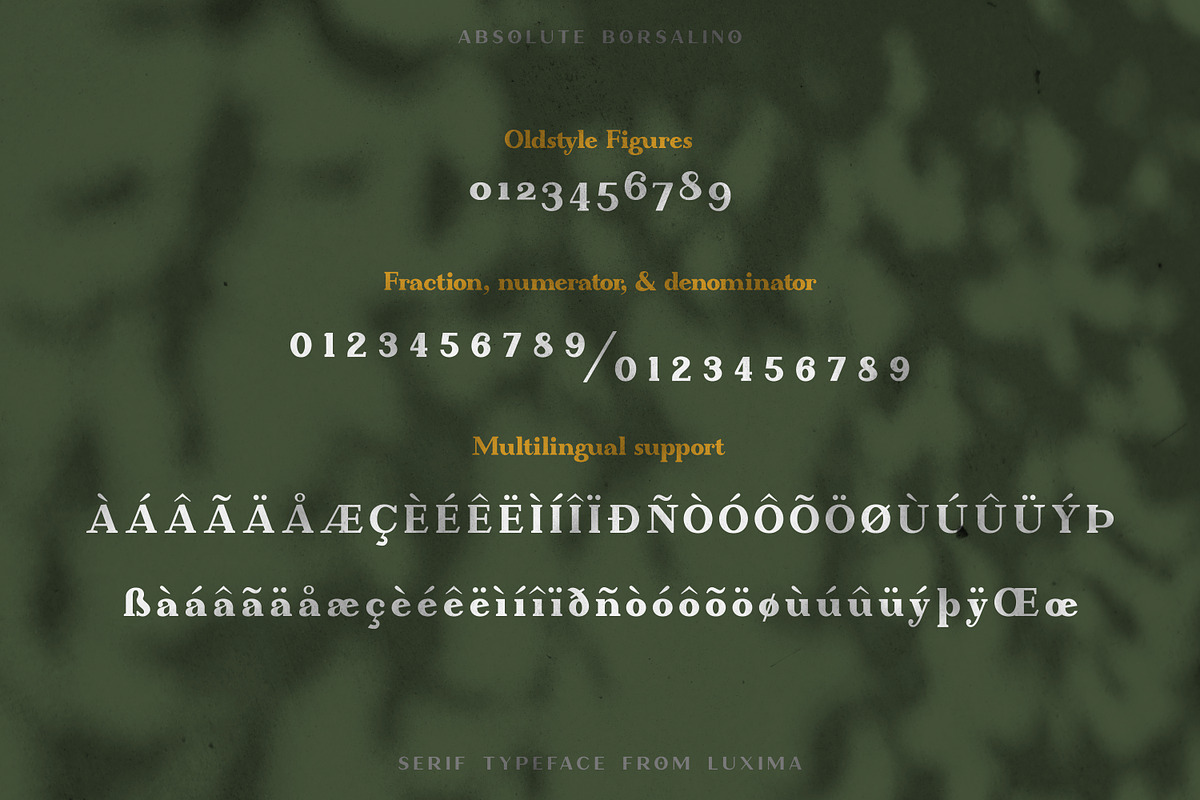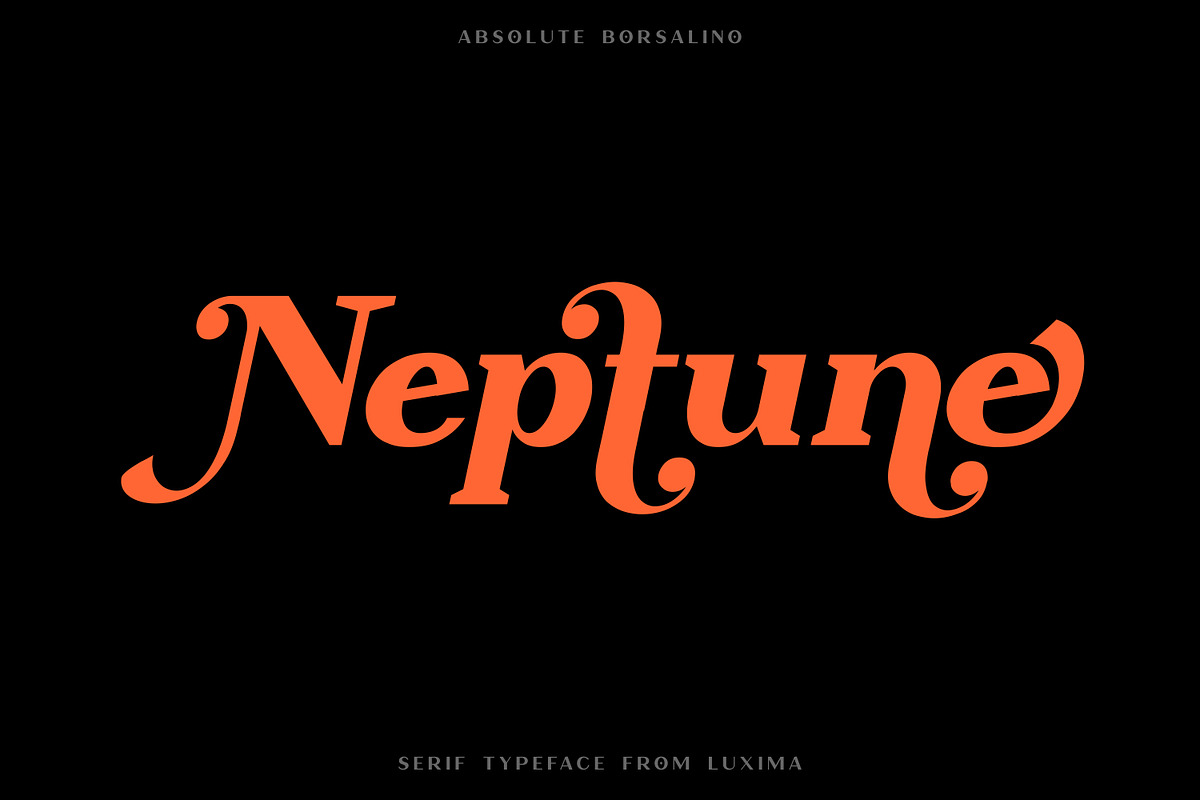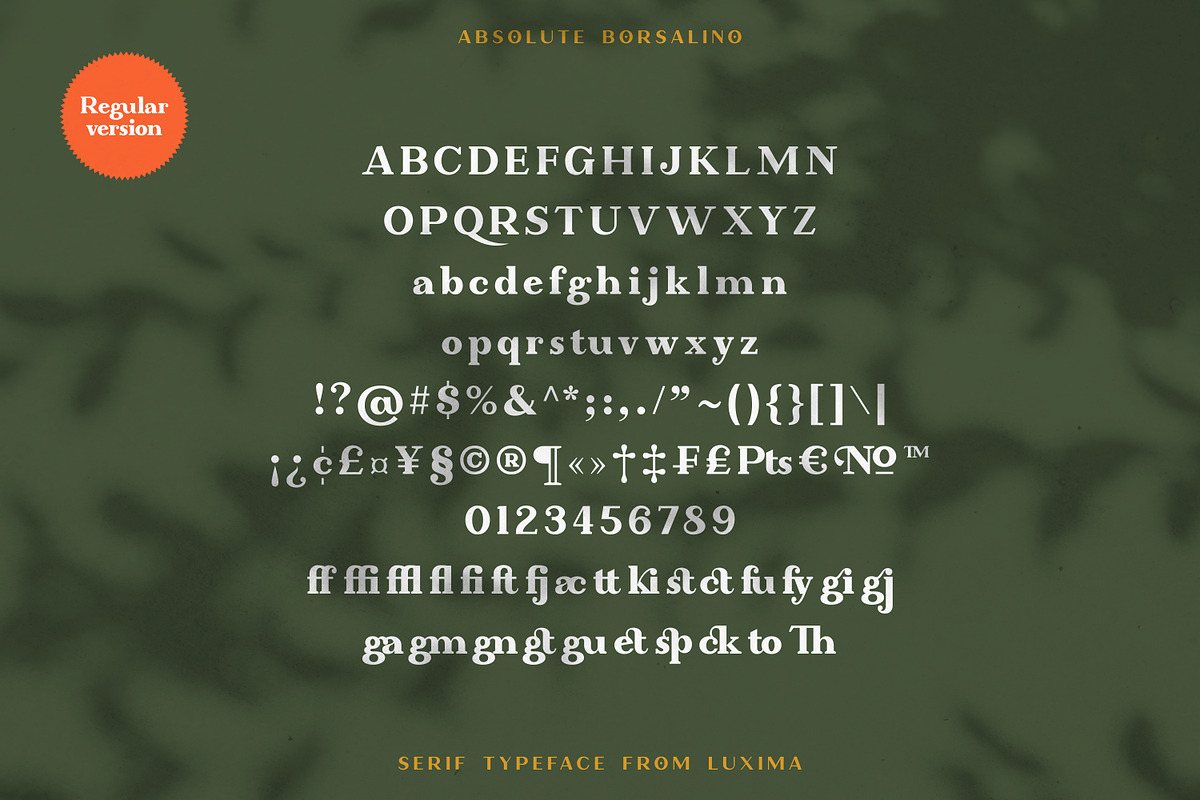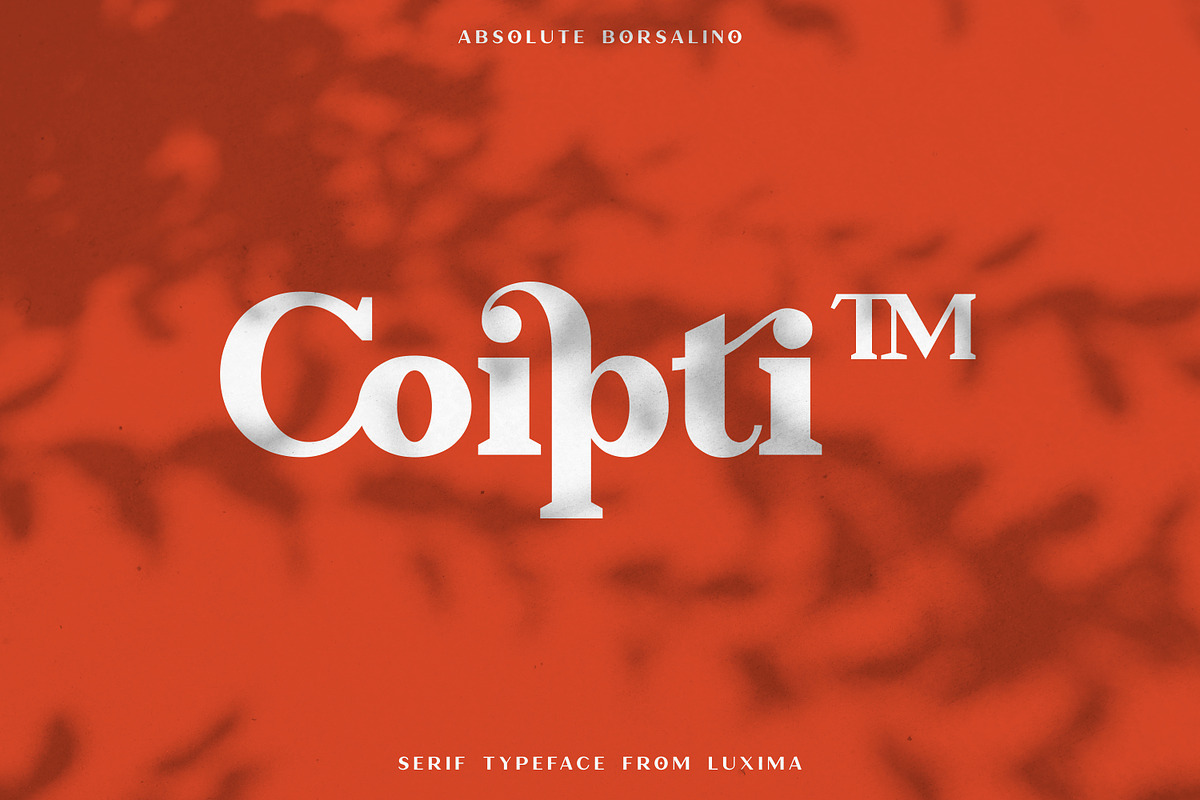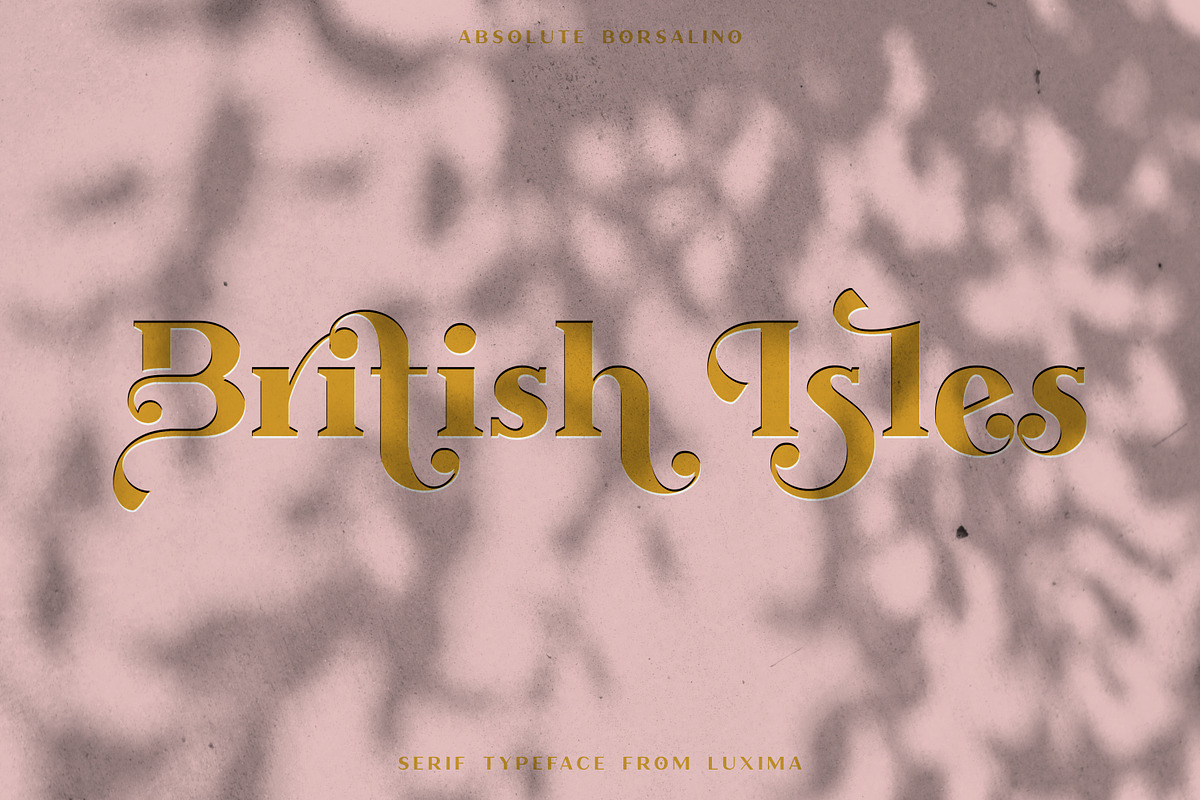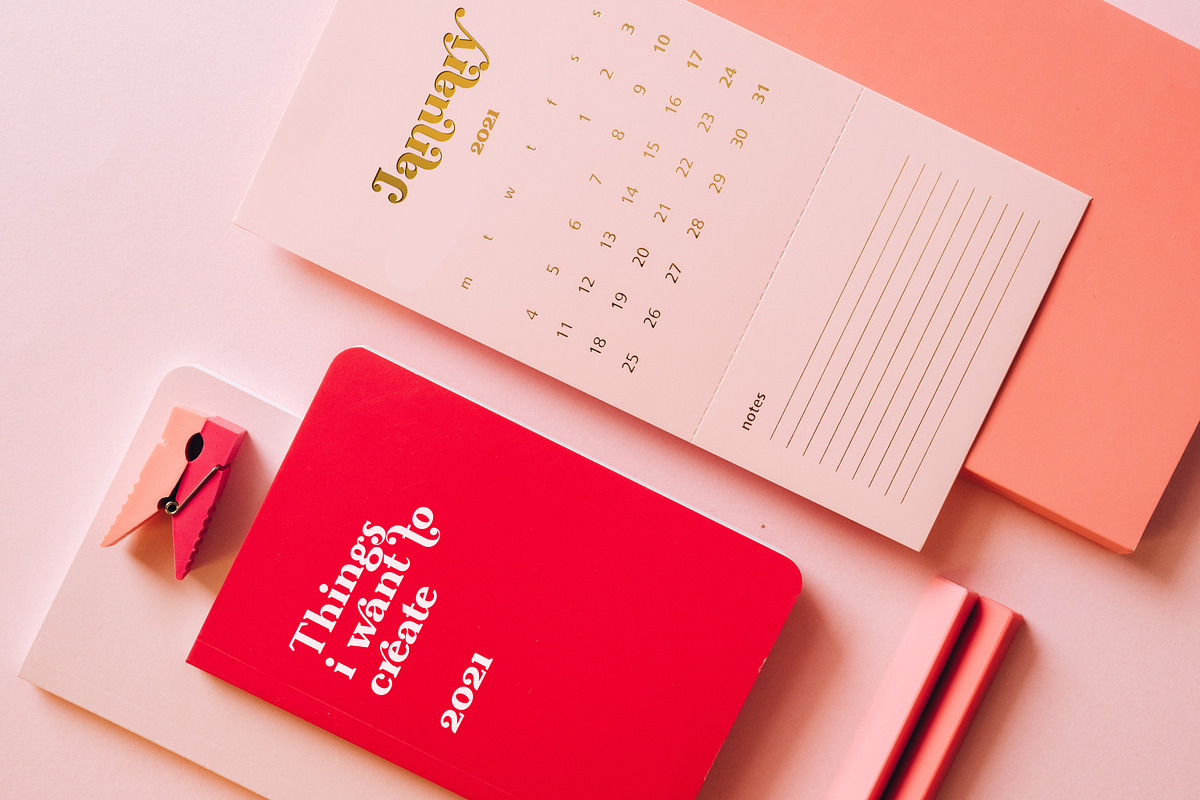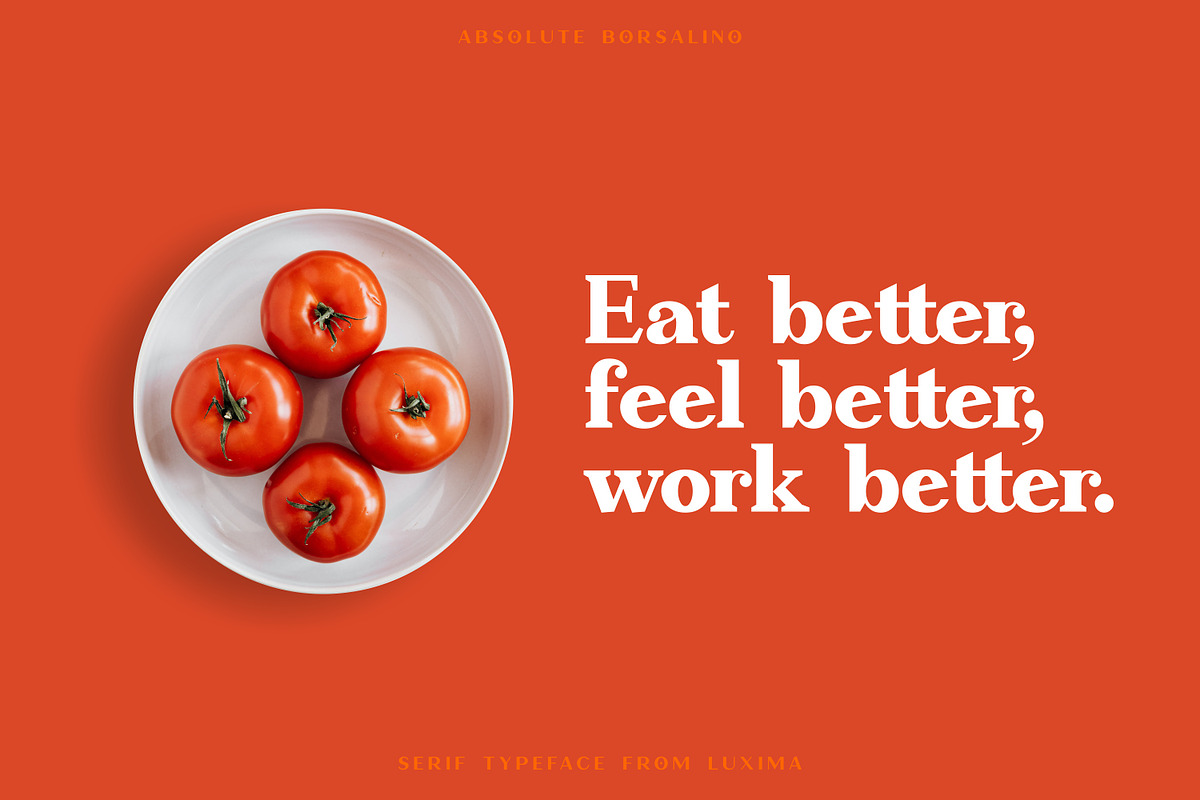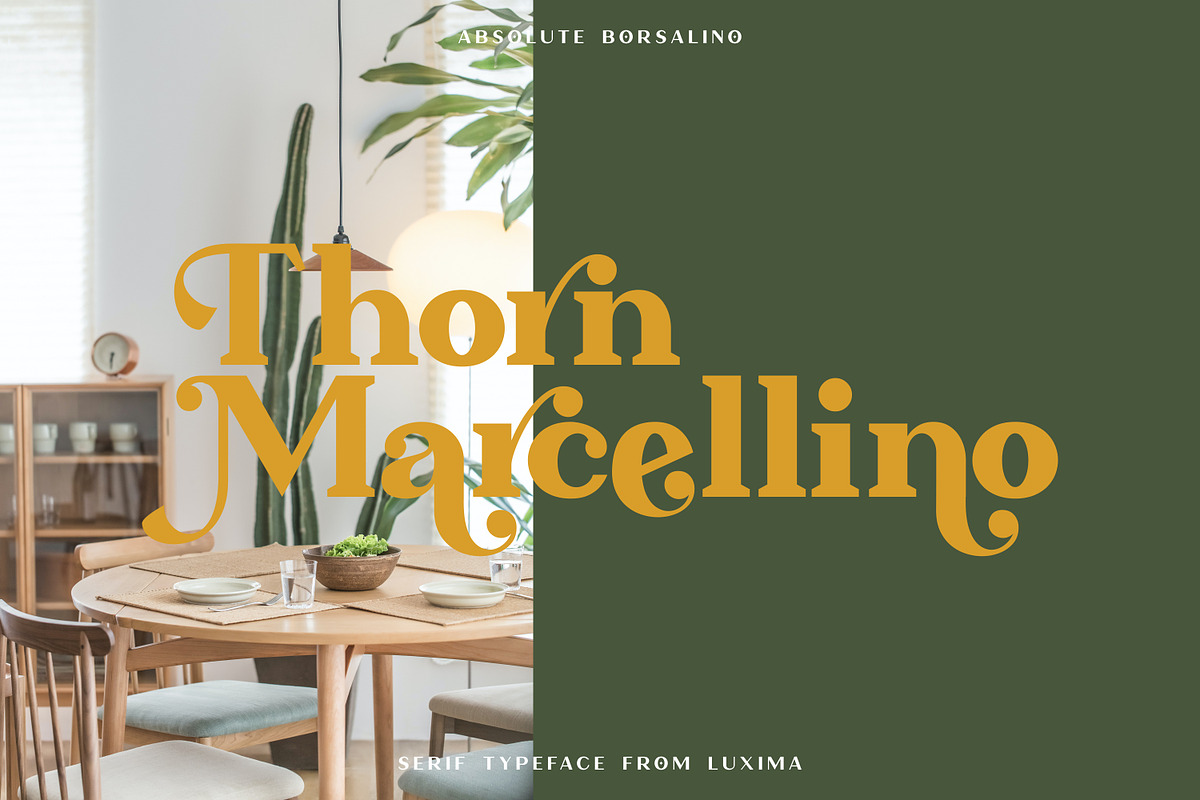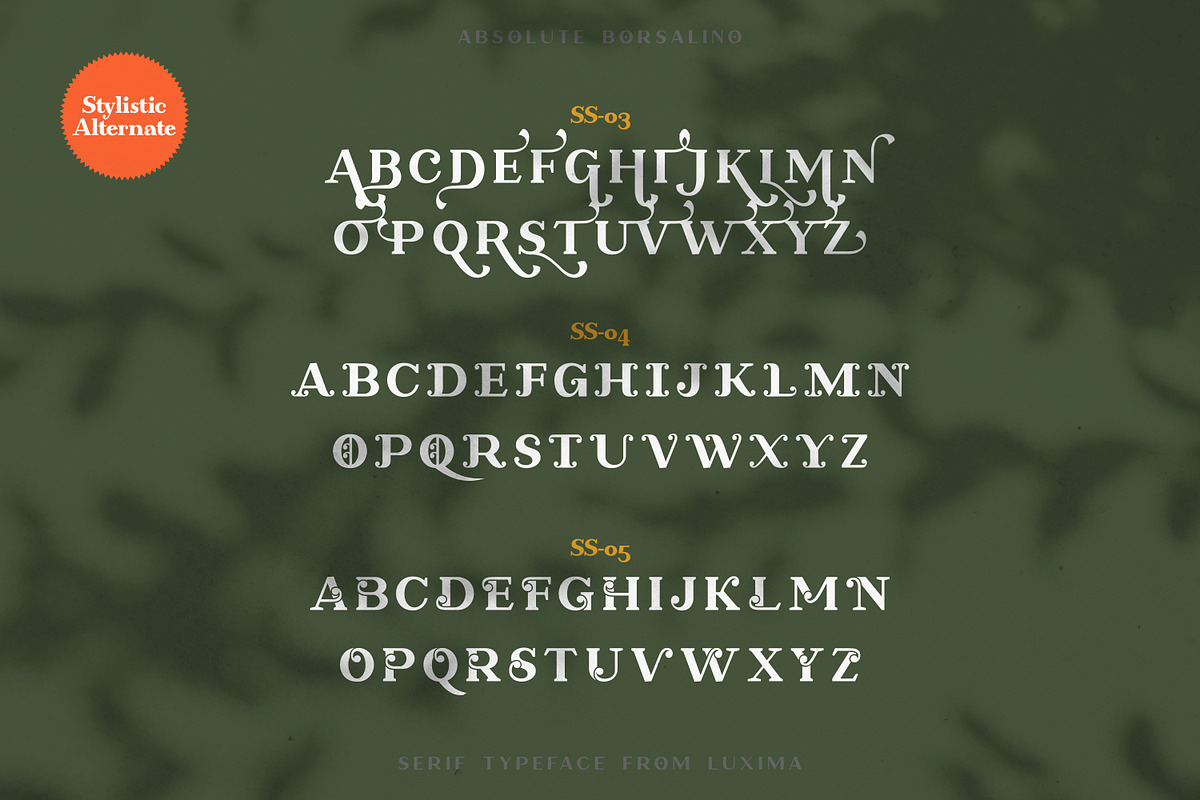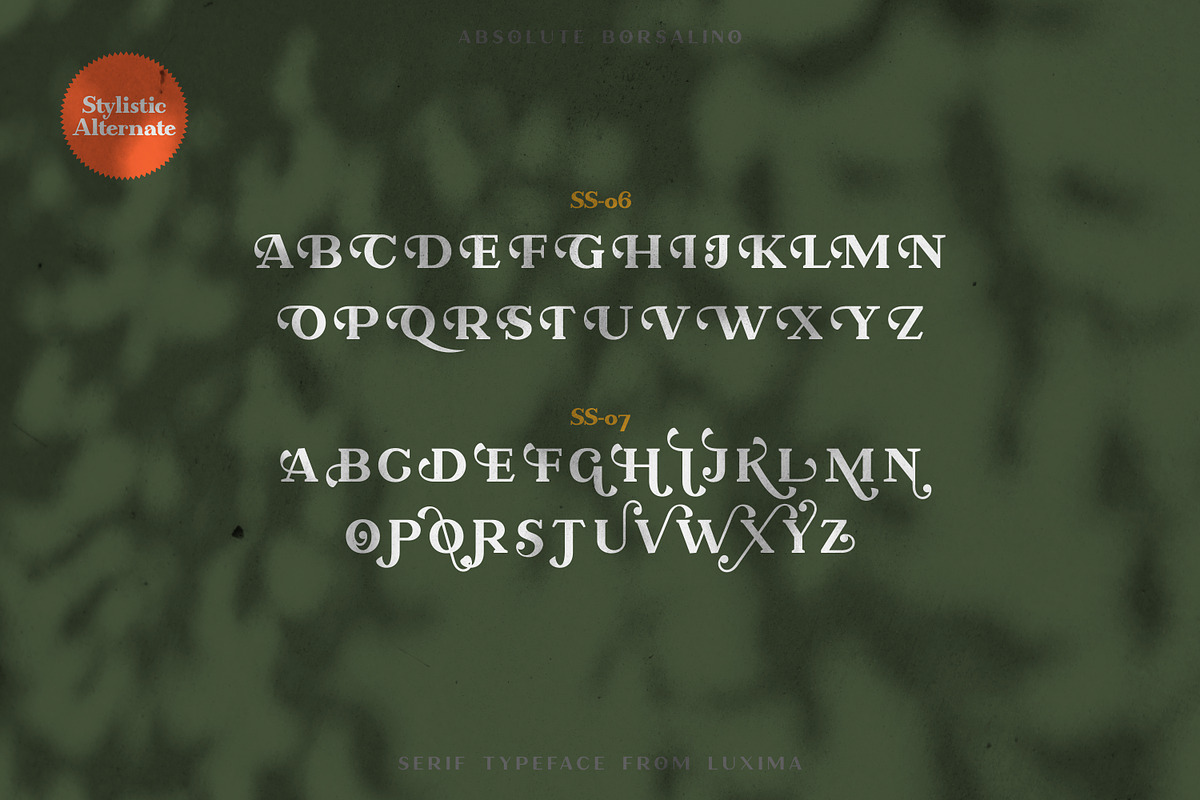
Absolute Borsalino - Serif Font
Absolute Borsalino a modern serif font with unique variation. From this product you will get 9 uppercase and 3 lowercase stylistic set of Absolute Borsalino typeface. Includes sans serif version! yes just for you. One file, multiple benefit.
Absolute Borsalino consists of uppercase, lowercase, digits, punctuation marks, multilingual letters, and 9 stylistic sets/character alternatives. Total 598 characters.
Absolute Borsalino OpenType features:
- Standard & Discretionary Ligature
- Stylistic Set 01 - 09
- Fraction
- Old style Figures
- Numerator & Denominator
*Oblique are slanted version of regular